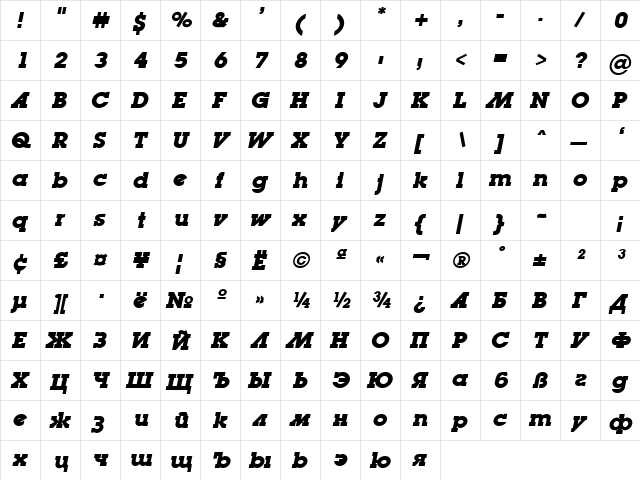
LugaAd Bold Oblique Font Preview
LugaAd Bold Oblique
Design Context for LugaAd Typeface
LugaAd is a composed and adaptable typeface that performs quietly and consistently across a wide range of design contexts. The slanted form adds forward momentum and visual energy. The heavy weight commands attention and anchors typographic hierarchies.
Pro Tip: Use LugaAd for emphasis, pull quotes, and subheadings where its slanted energy can add rhythm to the layout.